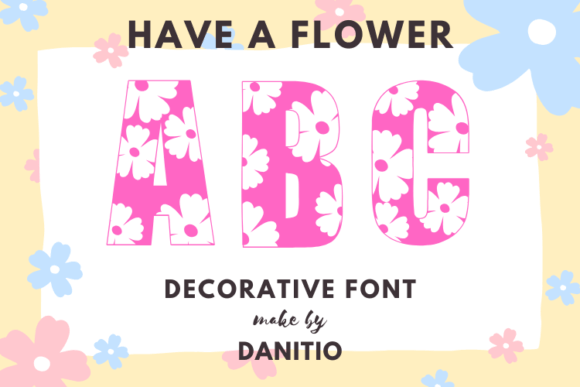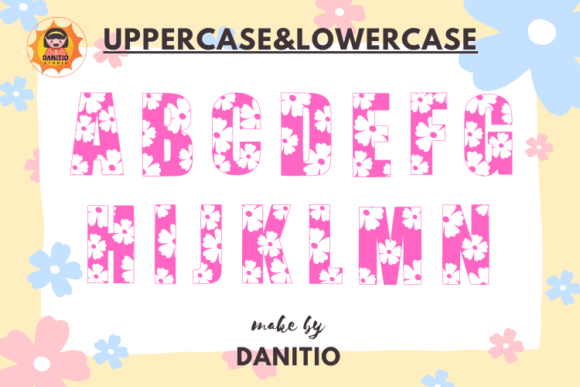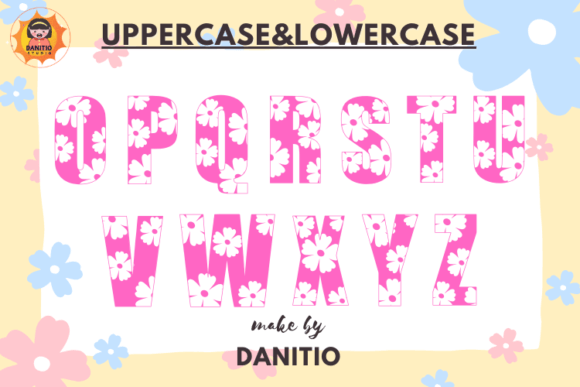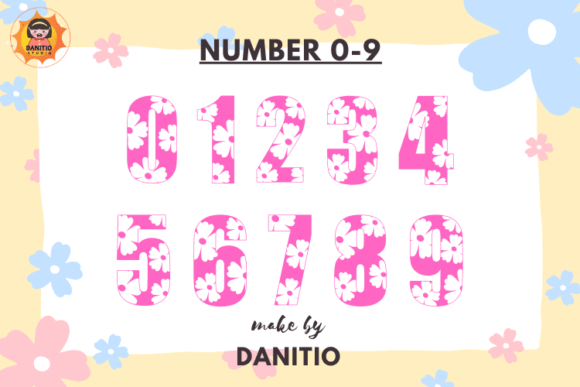
Have a Flower Font
About the Have a Flower Font
Get ready to be inspired by Have a Flower Font, a fresh and dynamic typeface for modern creators. Have A Flower is a fun and beautiful decorative font. The letters are decorated with many flowers. This makes it perfect for your favourite projects like posters, flyers, and social media posts. or other products that you think are appropriate Hope you enjoy using my fonts.
Have A Flower’s playful, decorative style is ideally suited for projects requiring a whimsical and eye-catching aesthetic. Think invitations, greeting cards, children’s books, or branding for businesses with a lighthearted and friendly image, such as bakeries or flower shops. Its ornate nature, however, makes it less suitable for body text or UI elements where readability is paramount.
For optimal visual harmony, pair Have A Flower with a clean sans-serif font like Open Sans for body copy, maintaining a balance between the decorative headline and easily readable text. Alternatively, a simple serif like Merriweather could add a touch of classic elegance to contrast the font’s playful flourishes. Avoid pairing it with other heavily decorated fonts, as this could create visual clutter.
The overall personality is undeniably cheerful and romantic; it evokes feelings of joy and celebration. This makes it a strong choice for projects emphasizing these positive emotions, but it might not be appropriate for brands seeking a sophisticated or minimalist image.
Have a Flower Font Usage Examples
Have a Flower Font Example